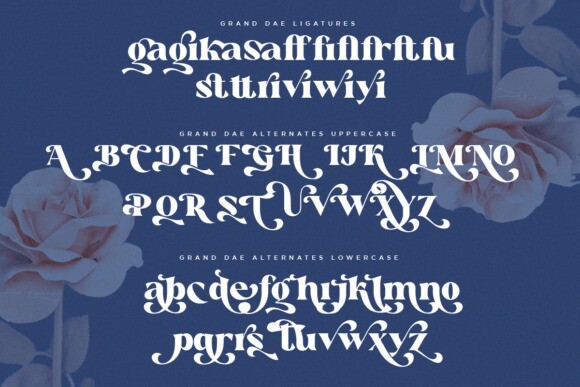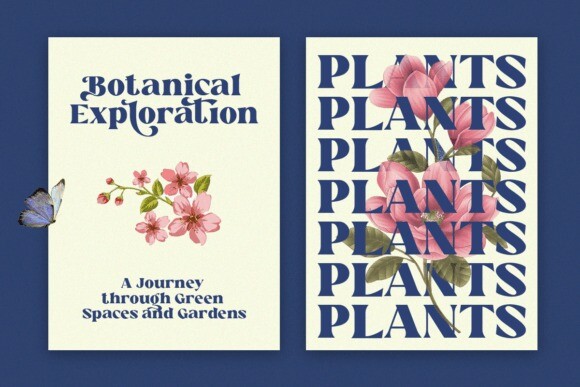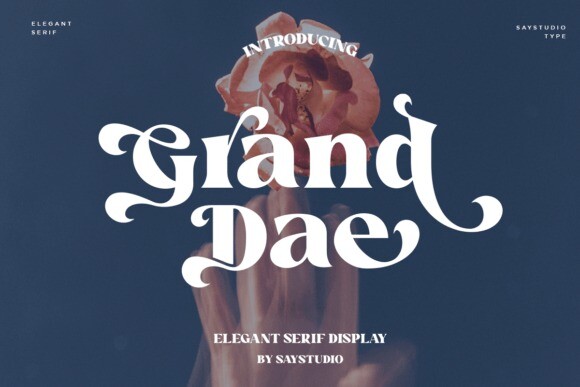
Grand Dae Font
Grand Dae Font is a bold and assertive display font. No matter the topic, this font will be an incredible asset to your fonts’ library, as it has the potential to elevate any creation.